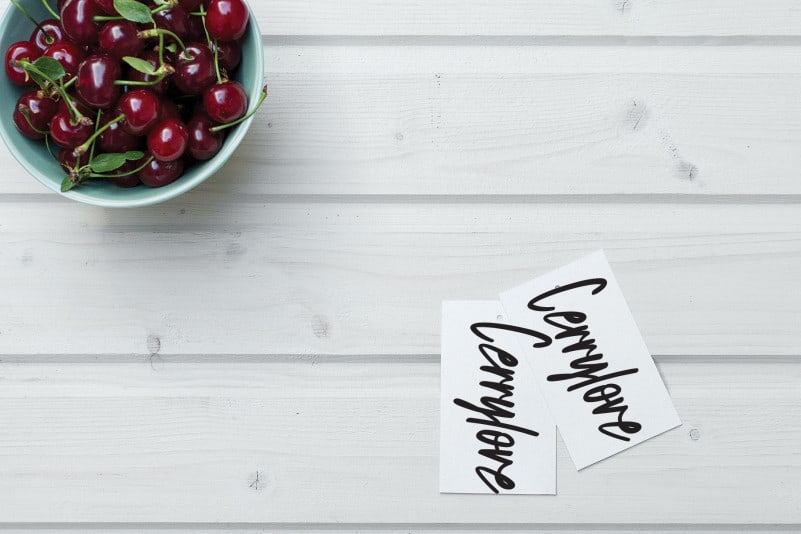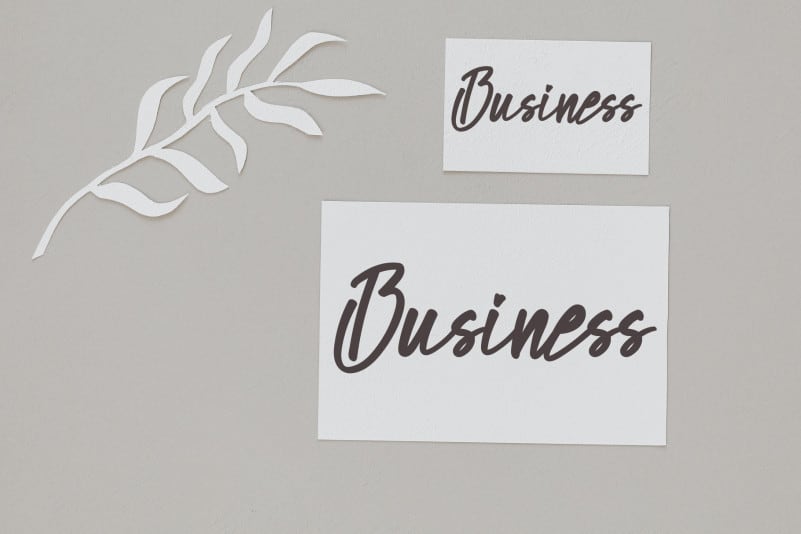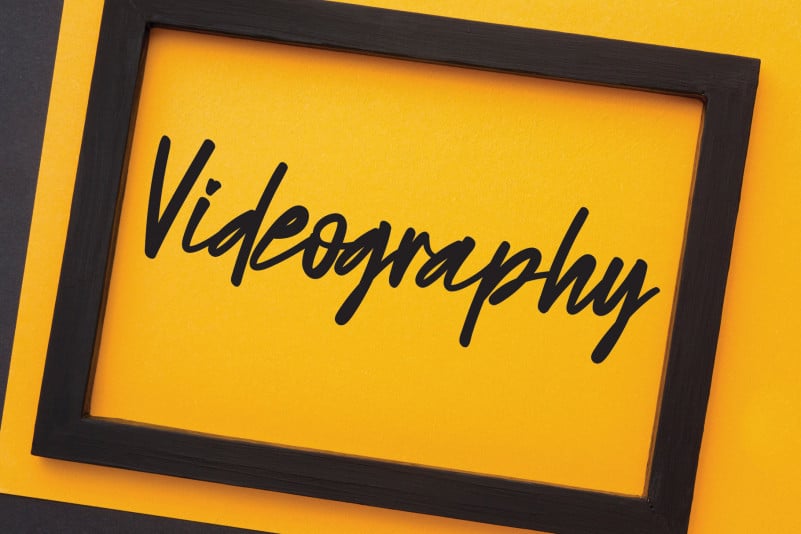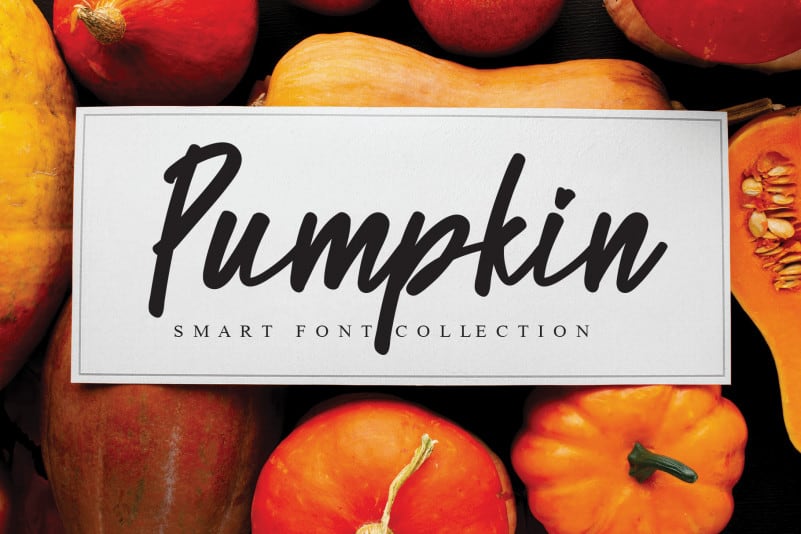
Billiondream Script Font
Introducing Billiondream Script Font. the latest style letters are perfect for wall displays, wedding invitations, social media post logos, advertisements, product packaging, product designs, labels, photography, watermarks, invitations, stationery, and any project that requires taste handwriting.